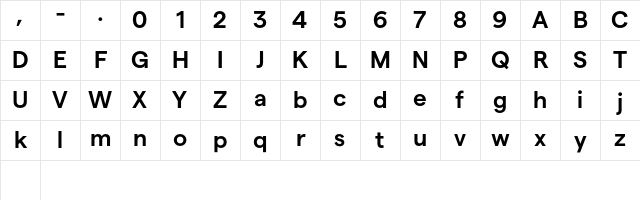
Matter TRIAL SemiBold Free Font
Matter TRIAL SemiBold
Style: SemiBold
Foundry: Displaay
Designer: Martin V￿cha
Complete Matter TRIAL SemiBold glyph index. Displaying only characters natively supported by Matter TRIAL SemiBold font.
Design Context for Matter TRIAL
Matter TRIAL is a composed and adaptable typeface that performs quietly and consistently across a wide range of design contexts. Its bold stroke weight gives it real presence on the page.
Who designed the Matter TRIAL SemiBold font?